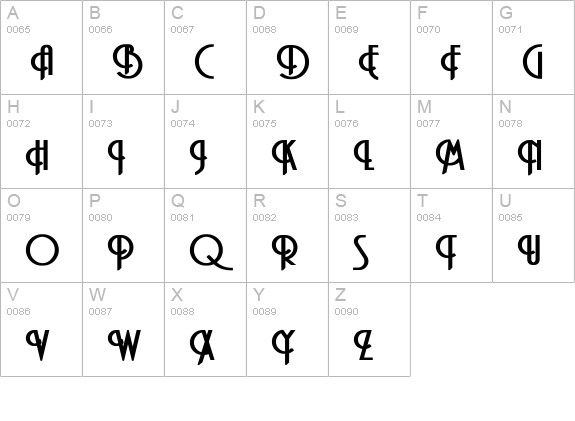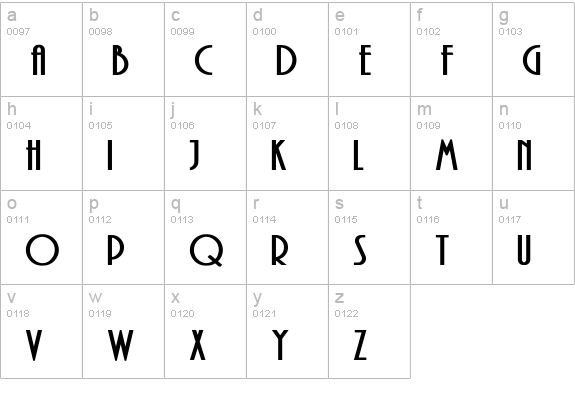
Andes Bold is a strong, high-contrast variant in the Andes typeface family \xE2\x80\x94 well suited to headlines, attention-grabbing titles, and strong calls-to-action.
Andes Bold font is a striking and versatile typeface that exudes strength and modernity. Its bold and clean lines make it perfect for a wide range of design projects, from logos to headlines to branding materials. The Andes Bold font is not only visually appealing but also highly legible, ensuring that your message will always stand out. The best part? Andes Bold font is available for free download at FontsMarket.com! Now you can enhance your designs with this impactful typeface without breaking the bank. Don't miss out on the opportunity to elevate your projects with the bold and dynamic Andes Bold font, freely accessible at FontsMarket.com.